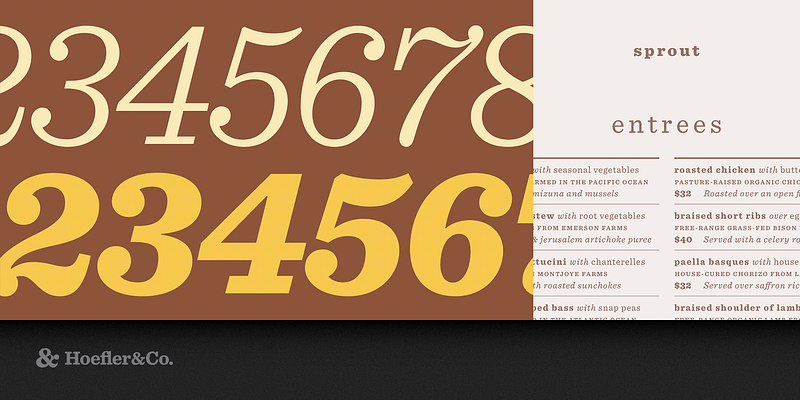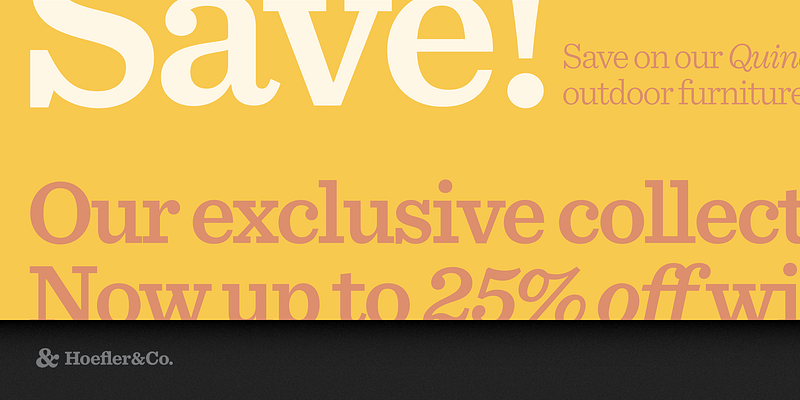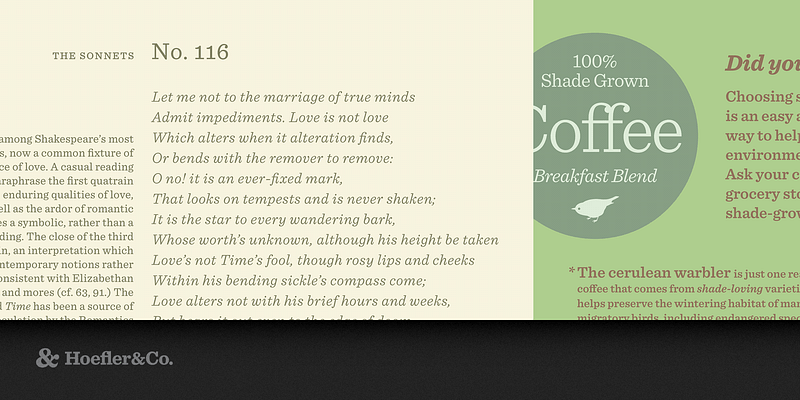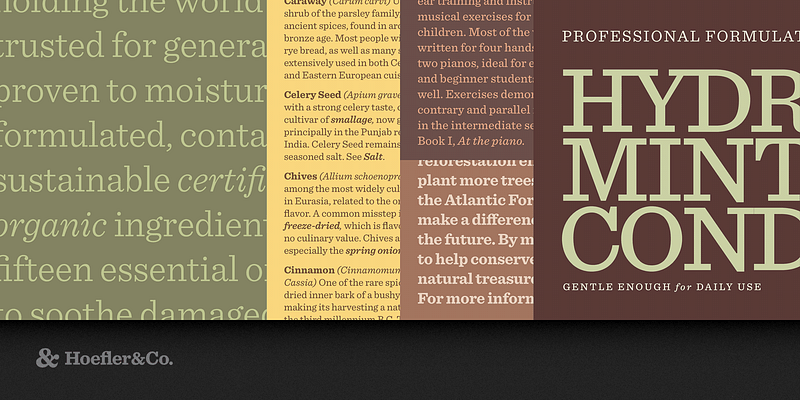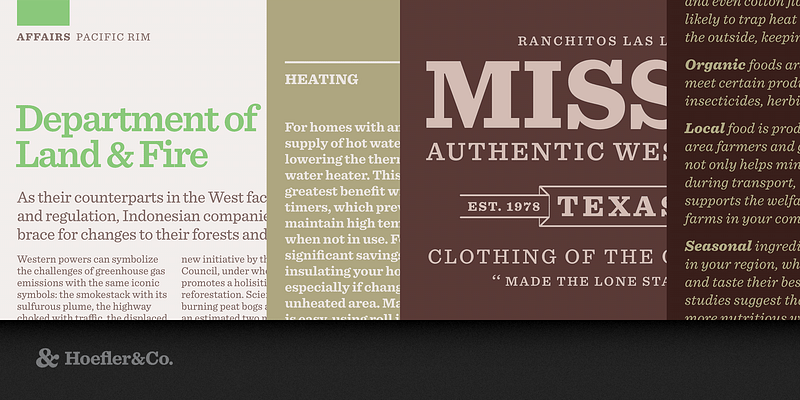
For everyone who’s ever wished Clarendons had italics, everyone whose favorite slab serif is shy a few weights, and everyone who’s ever needed a slab serif to thrive in text: we designed Sentinel for you.
The Sentinel typeface was designed by Jonathan Hoefler in 2004, with contributions from Tobias Frere-Jones, Jesse Ragan; Sara Soskolne, Ksenya Samarskaya, Colin M. Ford, and Aoife Mooney. In the early nineteenth century, typefounders seeking novelty invented a freakish new category of typefaces with extreme weight, heightened contrast between thick and thin strokes, and stocky, unbracketed serifs. This style, which became known as ‘antique,’ would rise to prominence in the decades ahead, when these faces were paired with lighter typefaces in order to signal emphasis: they became the world’s first ‘boldface’ types. Sentinel updates and expands the antique genre to include both romans and italics, and a set of ornaments in period style. Created for Texas Monthly, in whose pages the typeface first appeared in 2004. First published in 2009, the Sentinel family was expanded in 2020 to include a broader character set, and two fonts of ornaments.
The first slab serifs were designed to be oddities. It was their intention to be eye-catching, to be novelties amidst the world’s conventional book types. Never mind that some of these faces treated different letters inconsistently, or had inherent qualities that limited the size of their families: these were eccentricities, and to a novelty typeface, eccentricity is strength. Two centuries later, their legacy includes three beloved species of typeface that are handsome, popular, and maddeningly difficult to use. Each is marred by a crippling deficiency, a situation inspiring us to create Sentinel.
A slab serif whose capital O is close to a perfect circle is called a Geometric. Its capital H will have horizontal and vertical strokes that appear the same weight, a policy that’s consistently applied throughout the entire alphabet. If the strokes are inflated beyond a certain weight, it becomes impossible to create a matching lowercase: the structural complexity of the lowercase a, e and g limits how heavy the design can go before these characters close in on themselves. The Geometric that maxes out at the Bold weight can only achieve a Black by compromising the underlying design, and in a typeface characterized by rigid geometries, these kinds of concessions can be glaringly obvious
.An early compromise was the introduction of contrast, which allowed horizontal strokes to remain thinner than vertical ones. This approach, which made it possible to create lowercase letters in extreme weights, proved to be an attractive motif among the capitals as well, and the resulting style became popular under the name Antique. A cousin of the Antique is the Clarendon, which adds rounded brackets that connect its serifs and stems, a useful feature that gives bolder faces the appearance of extra weight. These brackets are consequently a liability in lighter weights, where they begin to overpower the letters themselves, and in counterpoint to Geometrics that lack heavier weights, Clarendons rarely have lighter ones. Their absence of a Book weight makes Clarendons useless for text, a fate sealed by a greater problem which they share with Antiques: neither have italics.
Sentinel was designed to address the many shortcomings of the classical slab serif. Unbound by traditions that deny italics, by technologies that limit its design, or by ornamental details that restrict its range of weights, Sentinel is a fresh take on this useful and lovely style, offering for the first time a complete family that’s serviceable for both text and display. From the Antique style it borrows a program of contrasting thicks and thins, but trades that style’s frumpier mannerisms for more attractive contemporary details. It improves on both Clarendons and Geometrics by including a complete range of styles, six weights from Light to Black that are consistent in both style and quality.
Planned from the outset to flourish in small sizes as well as large, Sentinel contains features like short-ranging figures that make it a dependable choice for text. And most mercifully, it includes thoughtfully designed italics across its entire range of weights.